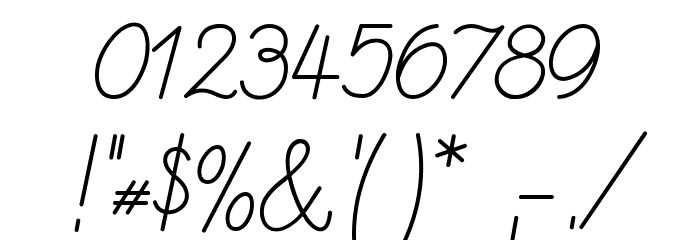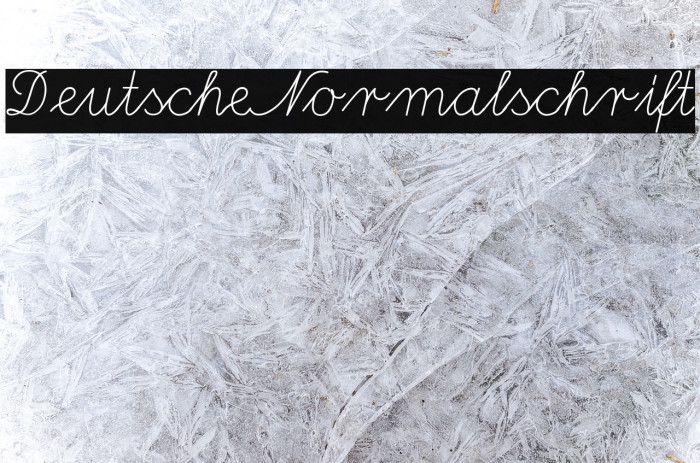
DeutscheNormalschrift Font
This font features a classic cursive style with elegant, flowing lines that connect seamlessly between letters. The uppercase letters are distinguished by their graceful loops and curves, while the lowercase letters maintain a consistent slant, enhancing the script's fluidity. The numerals are designed with a similar cursive flair, ensuring cohesion across all characters. Special characters are thoughtfully integrated, maintaining the overall aesthetic. The font's delicate strokes and balanced proportions make it suitable for projects that require a touch of sophistication and elegance.
A classic cursive font with elegant, flowing lines and seamless letter connections.
- Proposed Projects: Ideal for wedding invitations, elegant branding, personal stationery, and decorative headlines.
- Overall Style: Classic
- Use Case: Headlines, Logos, Invitations